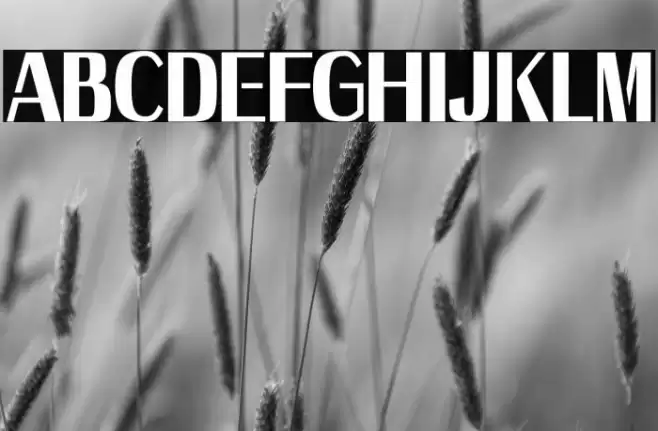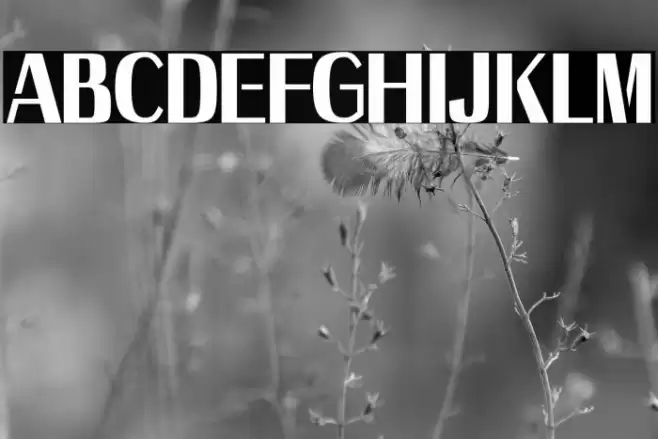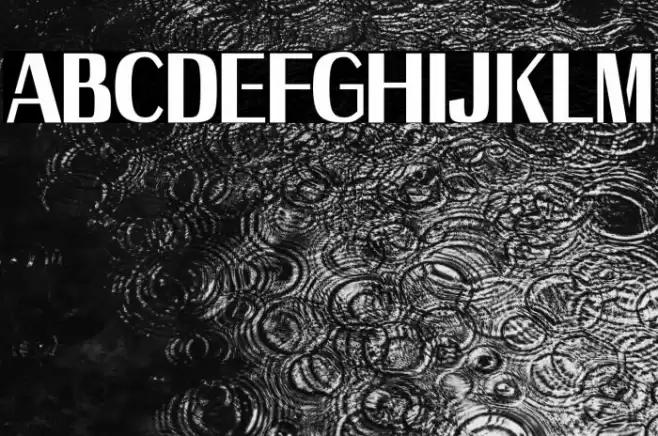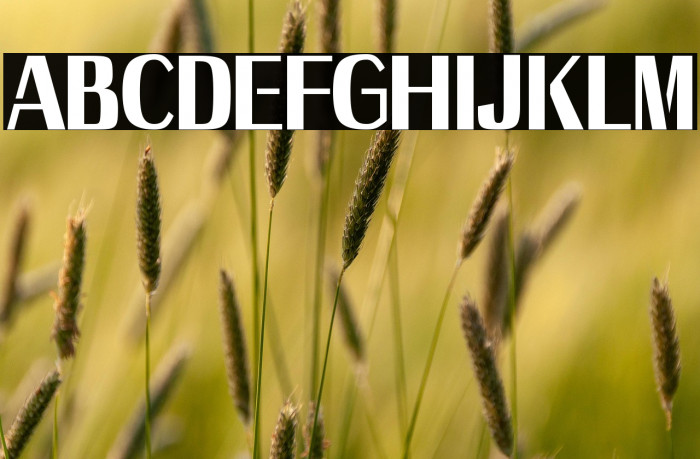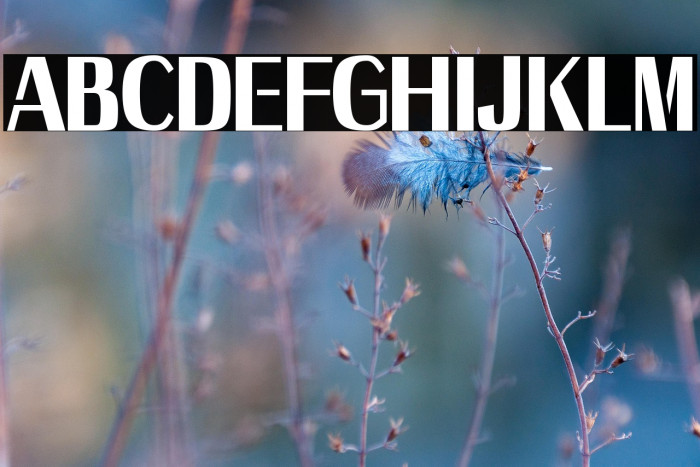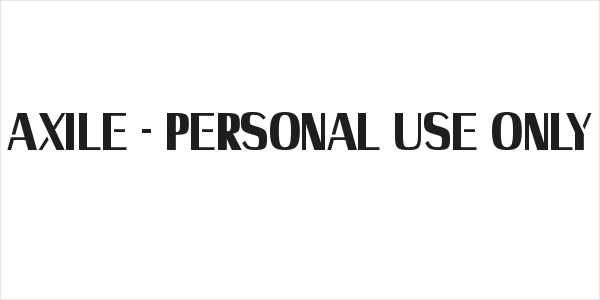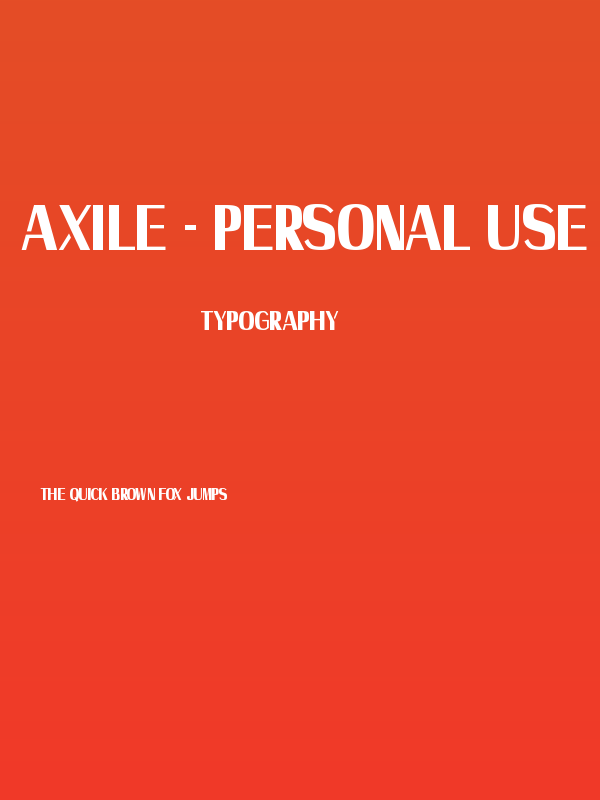
Axile - Personal Use Only Font
Axile - Personal Use Only Description
This font features a bold and striking design with a modern flair. The uppercase letters are characterized by thick, strong lines and a slightly condensed form, giving them a powerful presence. The lowercase letters maintain the same boldness, ensuring consistency throughout the typeface. The numerals are equally robust, with a uniform thickness that complements the overall style. Special characters are designed with the same attention to detail, ensuring they integrate seamlessly with the rest of the font. The font's high contrast between thick and thin strokes adds to its dynamic appearance, making it suitable for impactful headlines and attention-grabbing designs.
A bold, modern font with high contrast and a slightly condensed style from Uncategorized fonts.
- Proposed Projects: Ideal for branding, advertising, posters, and any design requiring a strong visual impact.